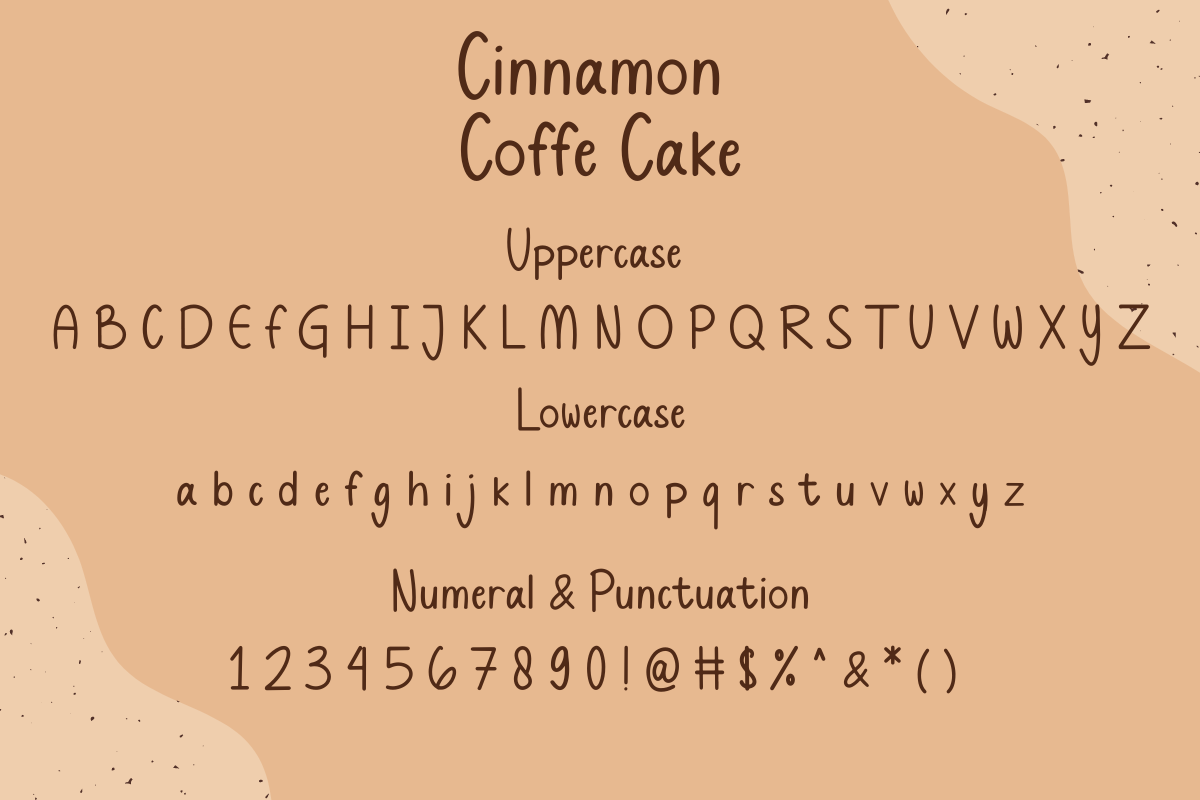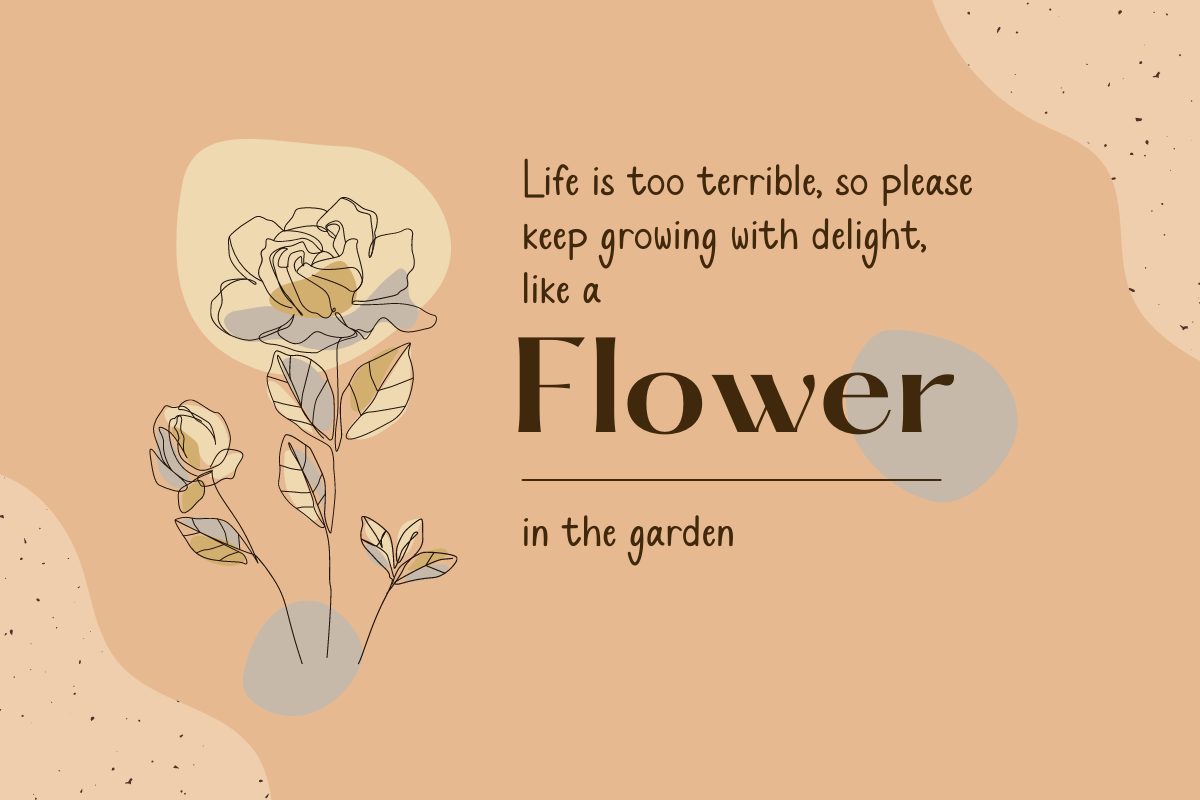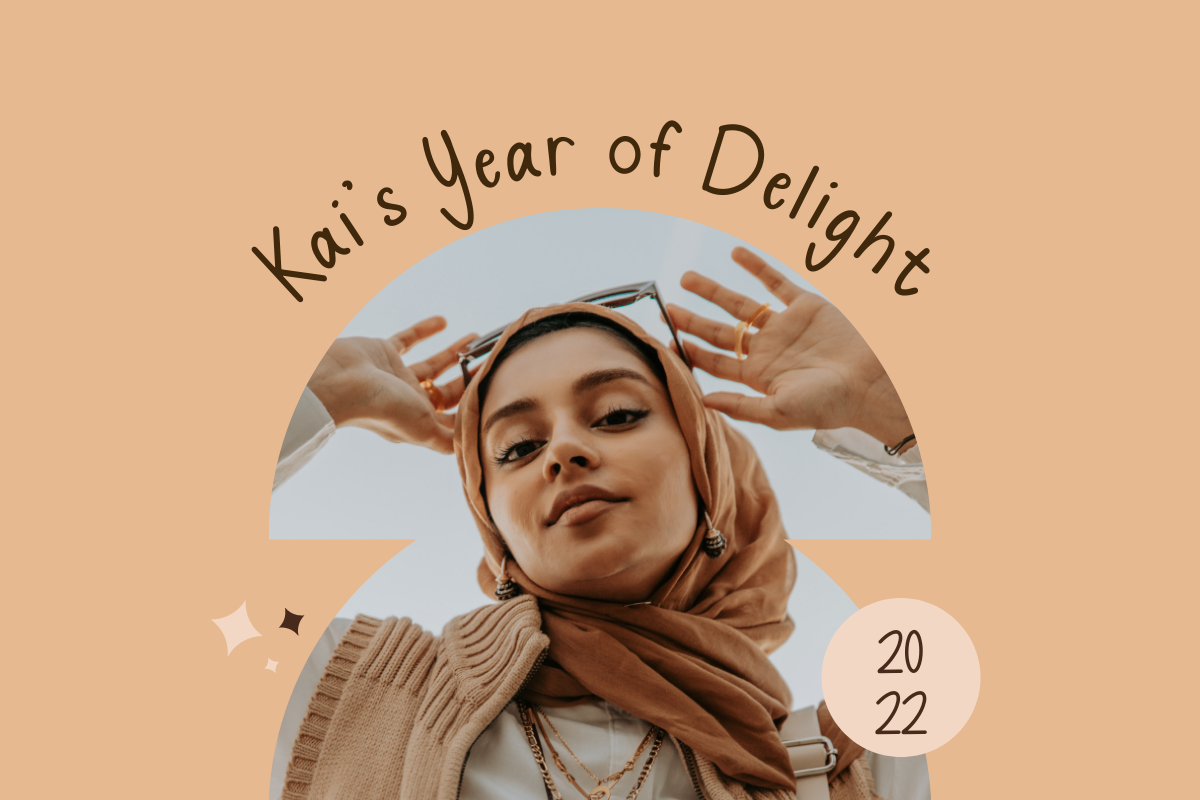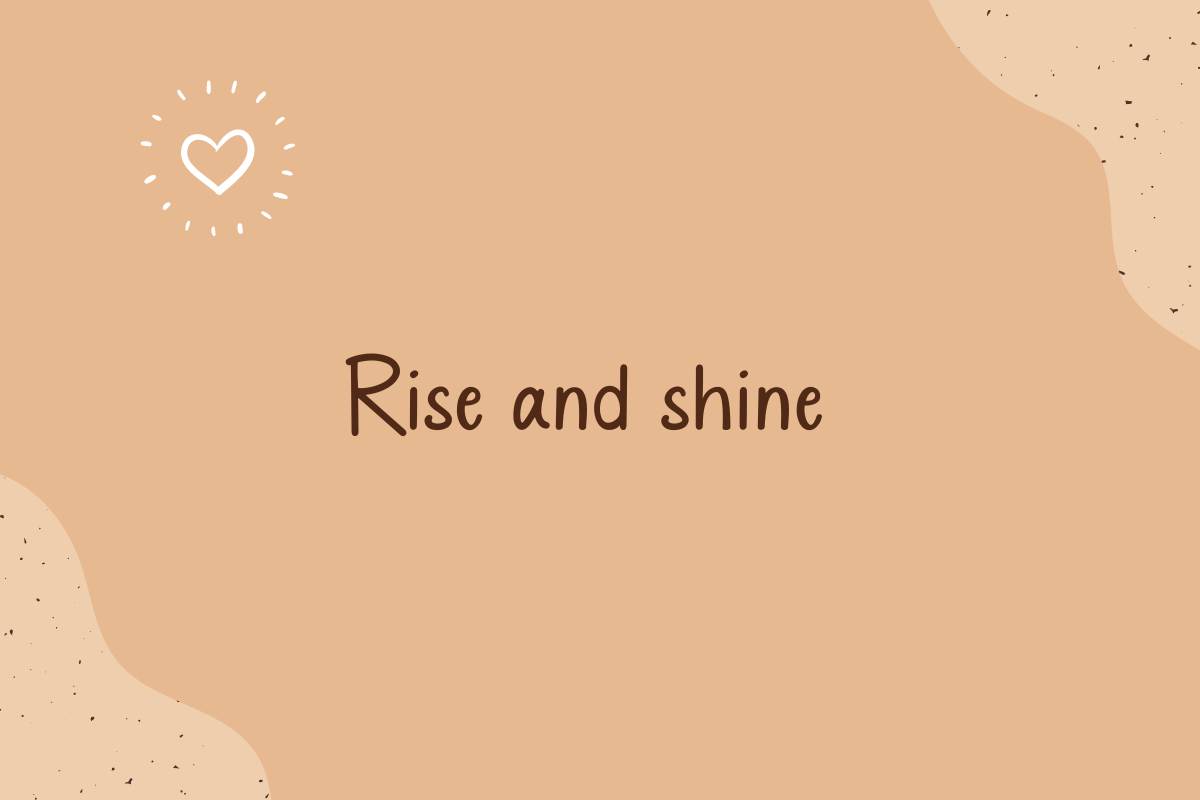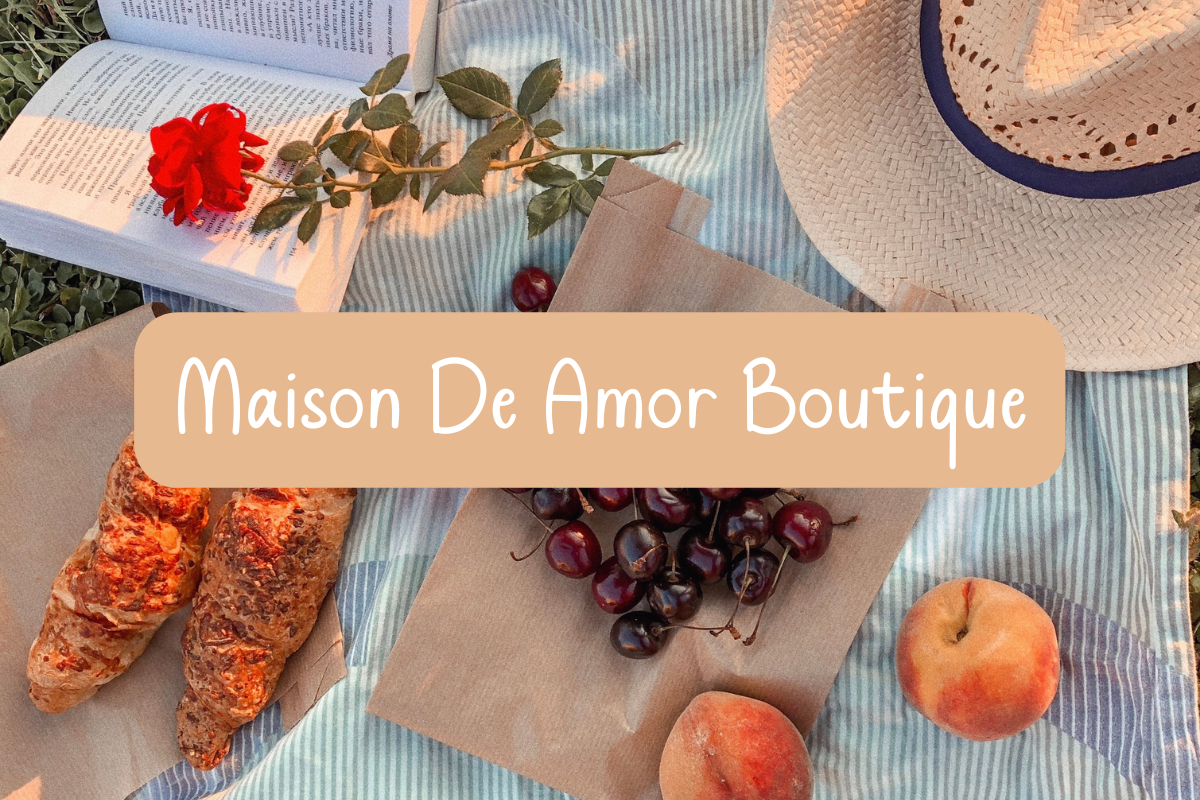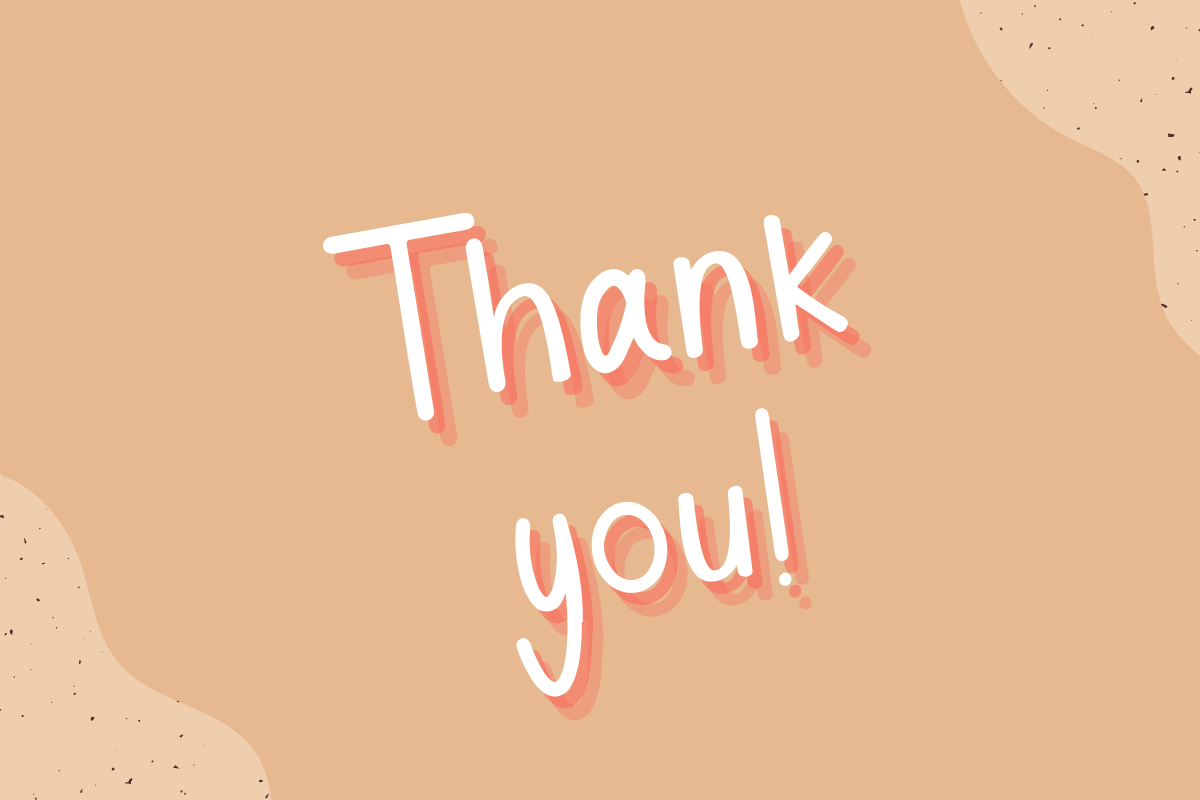
Cinnamon Coffe Cake
This is my 2nd font , it's called Cinnamon Coffe Cake. This font is handwritten font. it's very suitable to be applied in your design, also it's perfect for logo, branding, title, social media post, advertisements, product packaging, product designs, label, photography, special event, web design, etc.
Cinnamon Coffe Cake (Uppercase, Lowercase)
Numeral & Punctuation